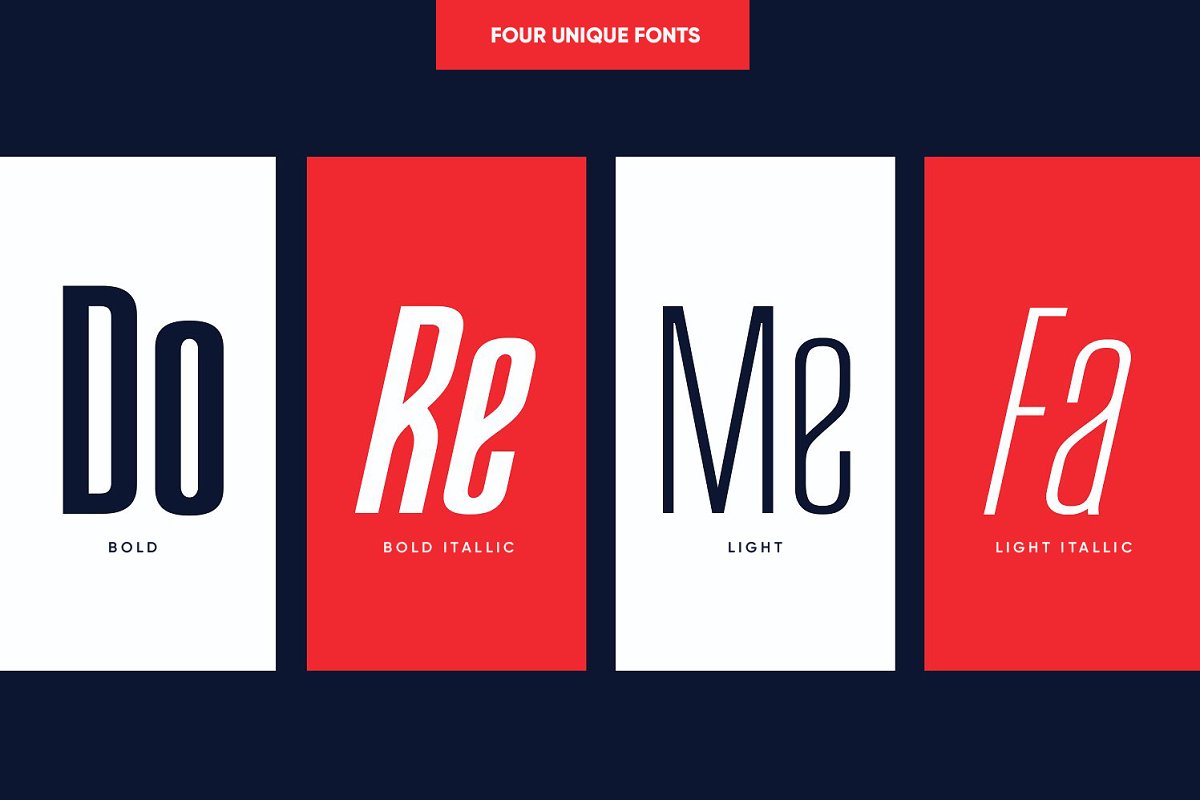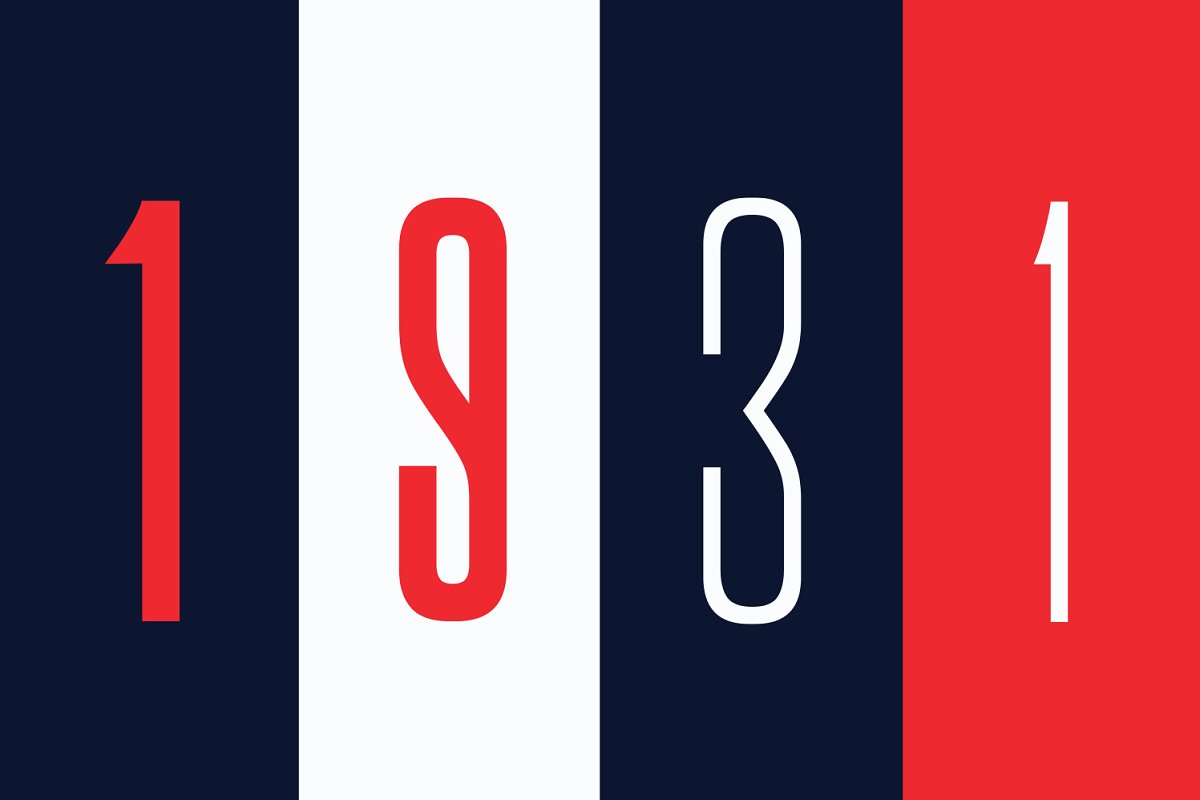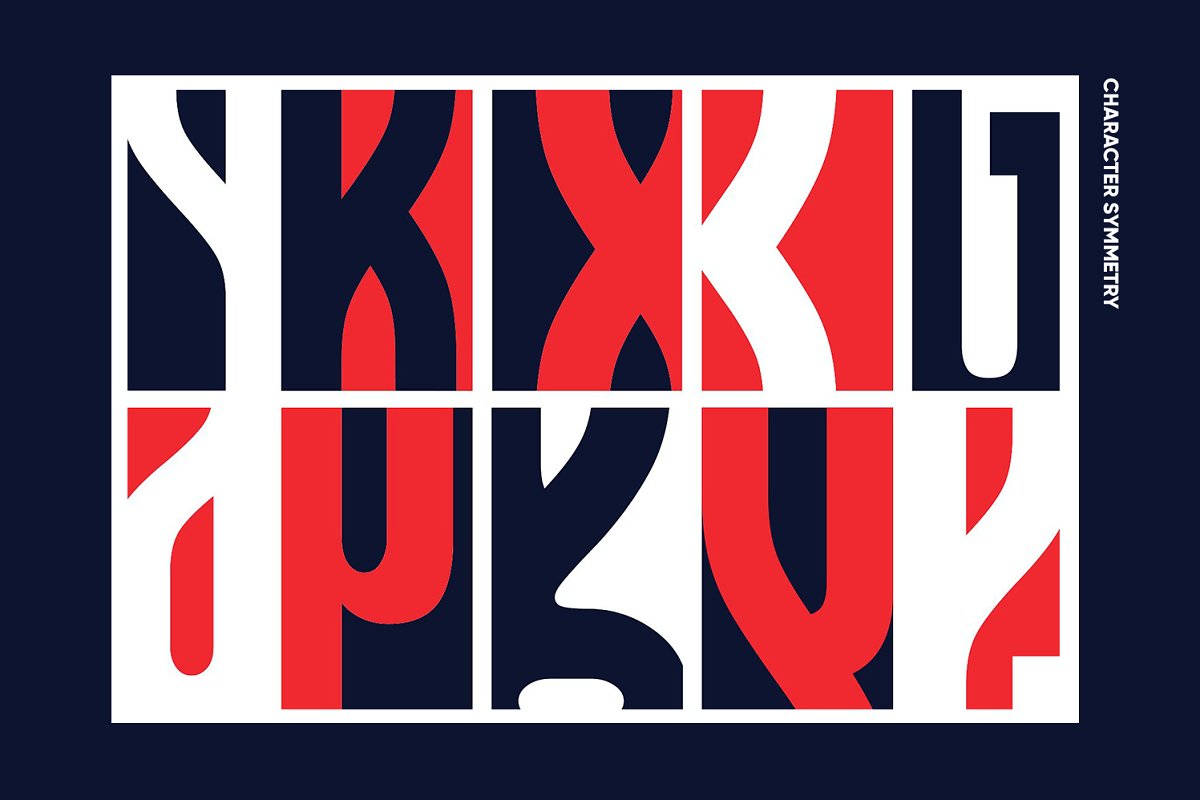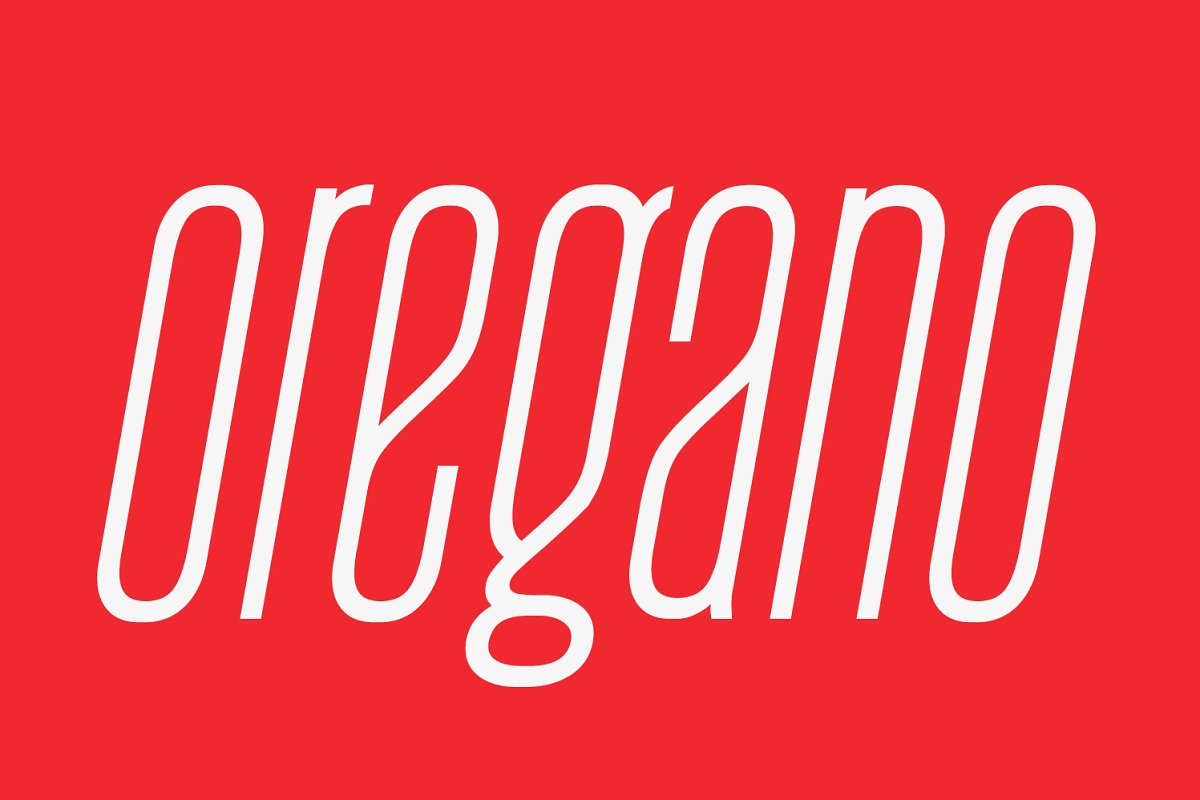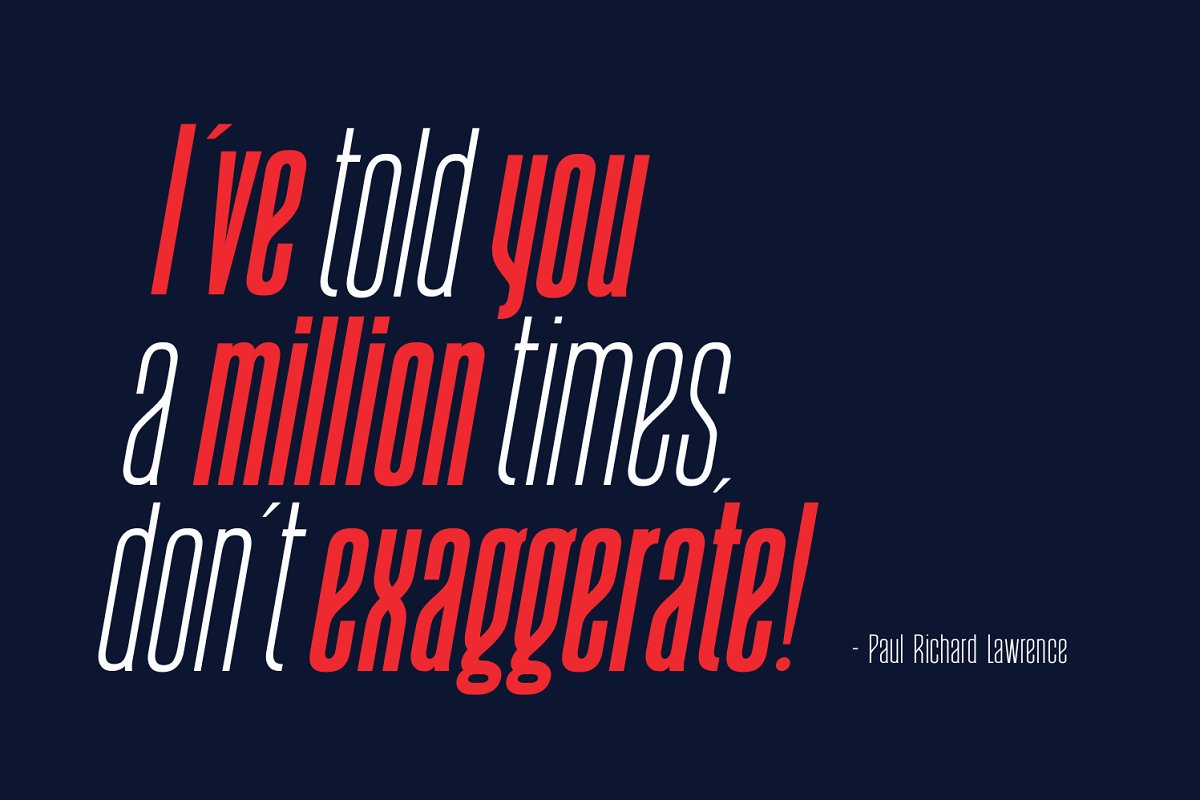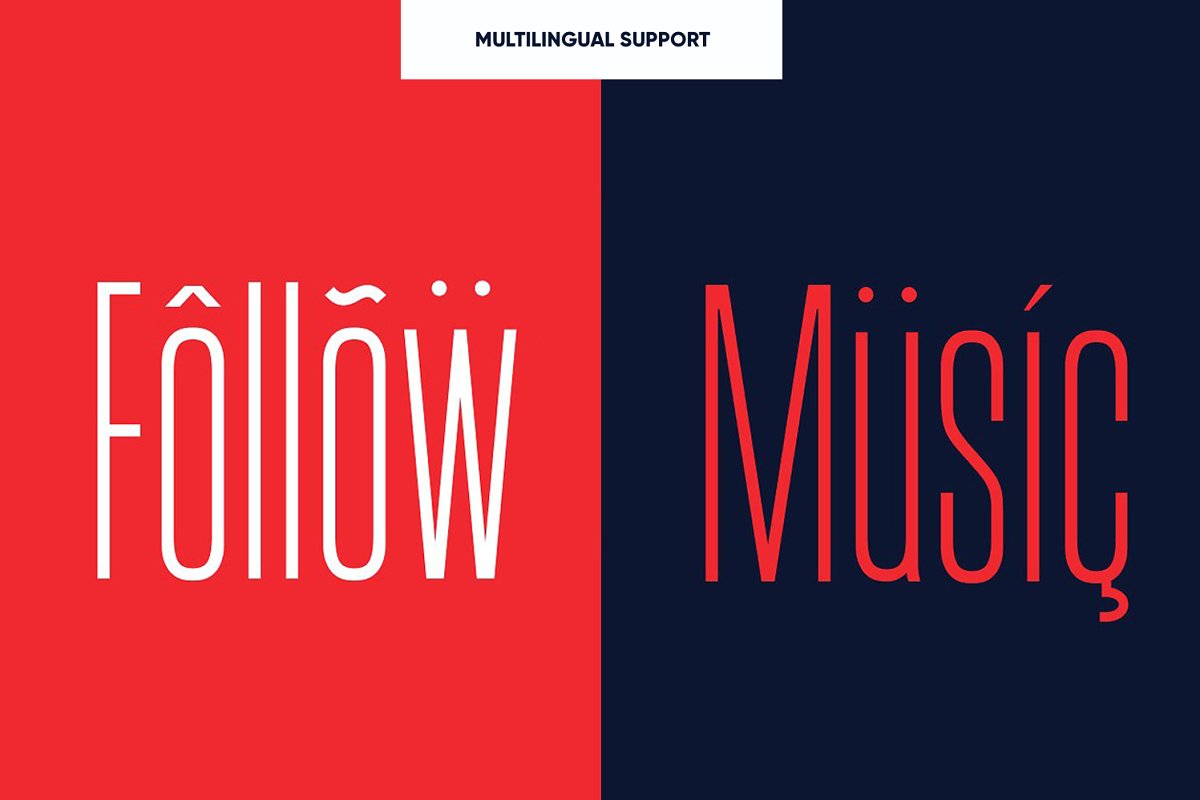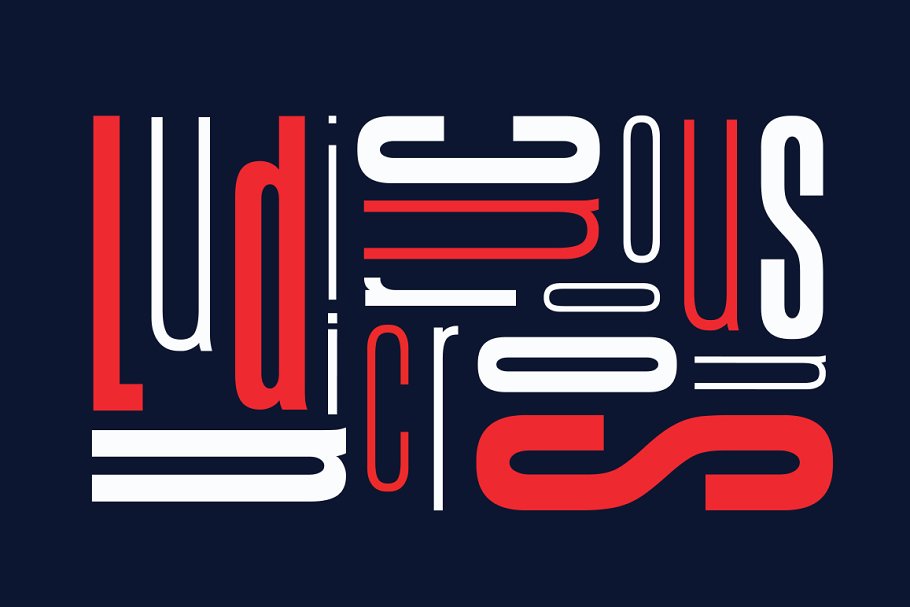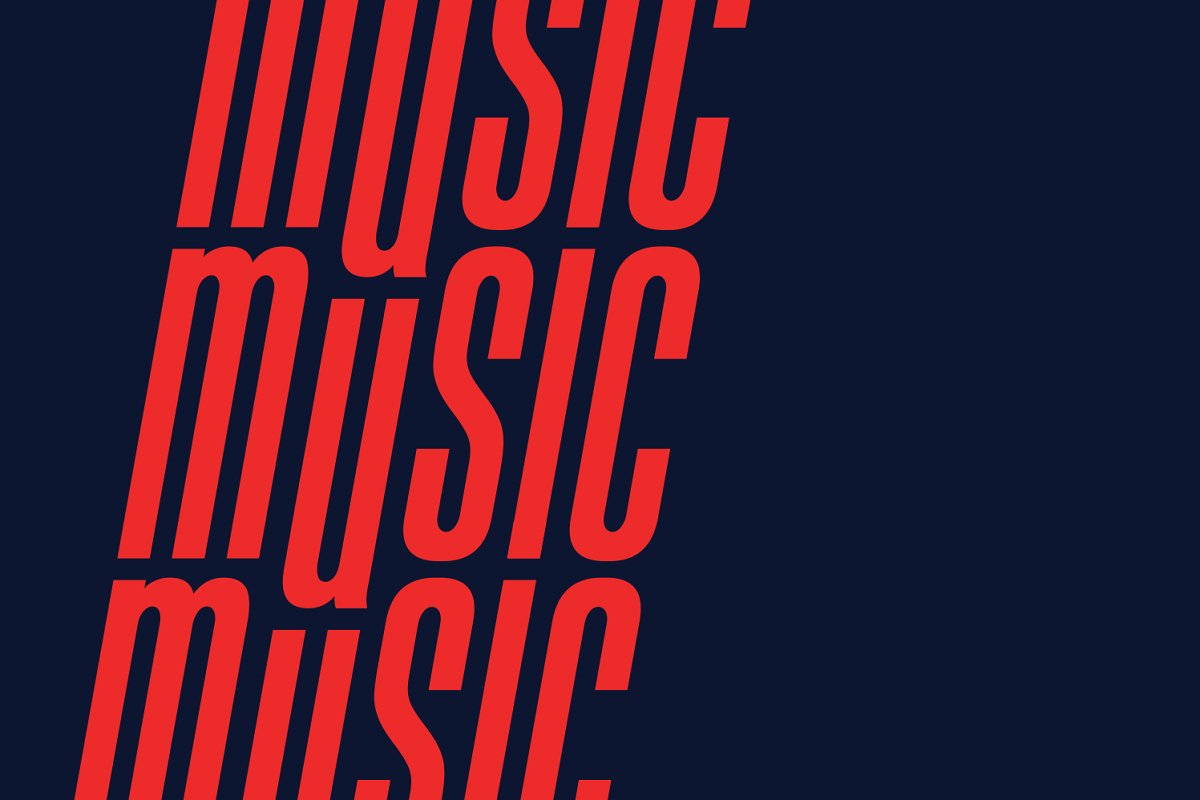
About the August Typeface Font
August is a magnificent play of extremes, A powerful and beautiful condensed sans serif display typeface, It brings charming curves and satisfying patterns to traditional condensed fonts, It’s designed for impact, without sacrificing style or legibility, It looks especially stunning in large scale, although it still carries a punch at smaller point sizes
It’s born to be a blessing for designers and viewers alike!Any inquiries for licensing please reach out: info@ellenlufftype, com The August typeface includes four fonts – bold, bold italic, thin & thin italic, All offer wide language support, upper and lower cases, numerals and extended punctuation
Specifically suited to:Posters, Blockbusters, movies, trailers, headlines, titles, logos, branding, scripts, display & bold fancy ‘stuff’August means marked by dignity, This project is in honour of my Grandpa, a wonderfully august musician and grandfather